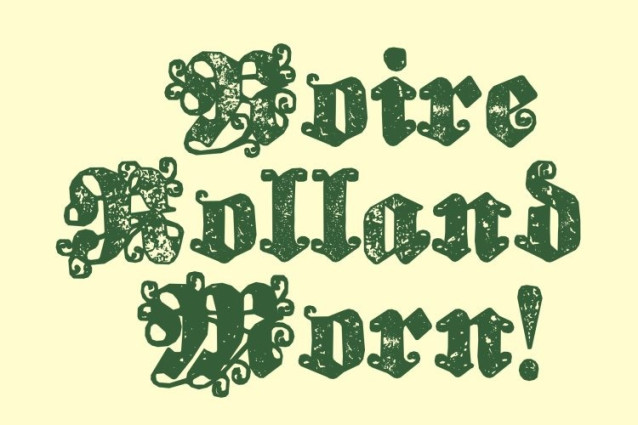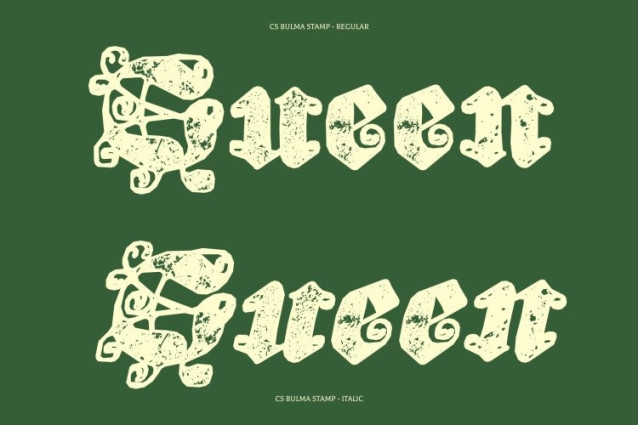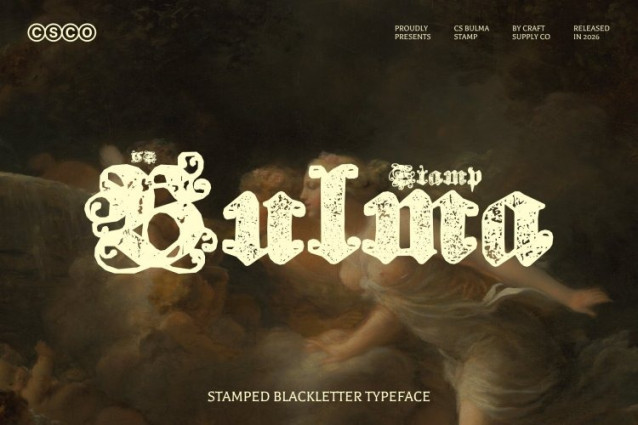
CS Bulma Stamp Font
CS Bulma Stamp Font is a blackletter display font that captures the dramatic spirit of traditional Gothic lettering. Its bold, angular strokes and intricate details reflect the heritage of medieval typography, evoking a sense of history, authority, and intensity. Enhanced with a stamped texture, the font gains a rugged, aged character that deepens its historical atmosphere while adding a handcrafted visual richness.
Medieval-Inspired Letterforms for Impactful Design
With its sharp angles and ornate structures, this font brings classic blackletter aesthetics to life. The textured stamp effect reinforces its vintage and timeworn appeal, making the letterforms feel as though they were printed with traditional techniques. This combination of Gothic structure and textured detail creates a powerful and expressive typographic style.
Perfect for Bold Headlines and Striking Branding
This font excels in projects that demand a commanding visual presence. Ideal for headlines, logos, posters, album artwork, and distinctive branding, the font delivers a strong and dramatic look that instantly captures attention. Its Gothic character blends historical elegance with a bold, modern attitude.
Timeless Style with Dramatic Character
Whether used for medieval-themed designs, alternative branding, or artistic visual compositions, this font offers a unique balance of heritage and expressive texture. Its bold blackletter forms and stamped finish create typography that feels powerful, authentic, and visually unforgettable.